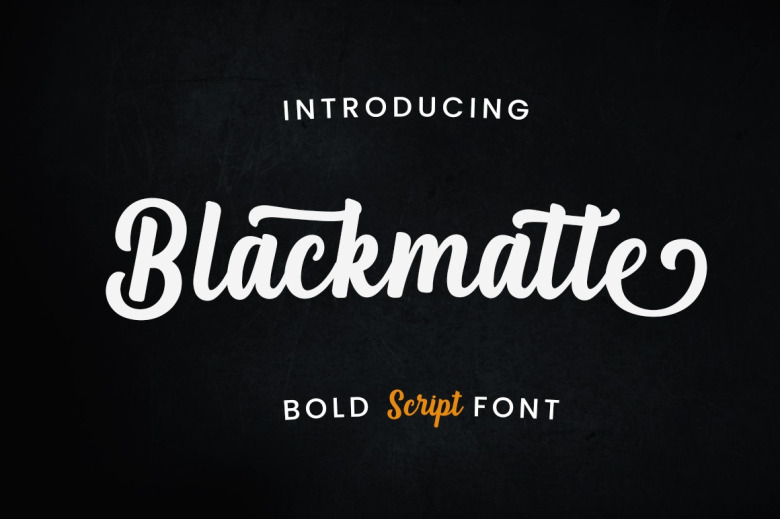
Blackmatte Font
Blackmatte is an elegant script font with a contemporary atmosphere and impeccable form, inspired by timeless classic calligraphy. Not too thin and not too thick, balanced and varied, this font was designed to enhance the beauty of your projects. Blackmatte is PUA encoded which means you can access all of the glyphs and swashes with ease!
Blackmatte Bold Script Font